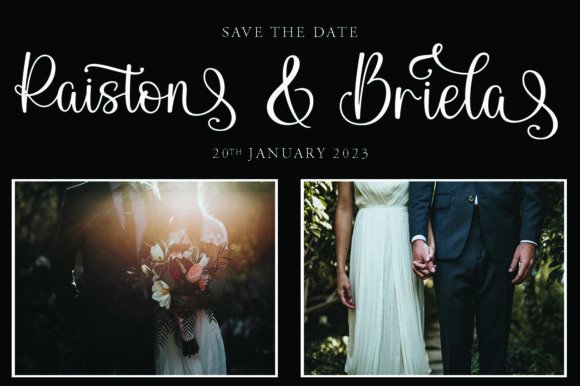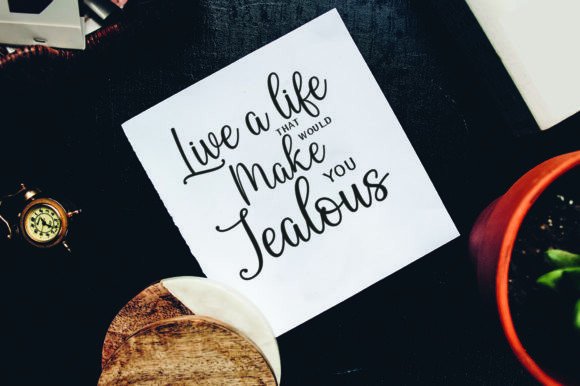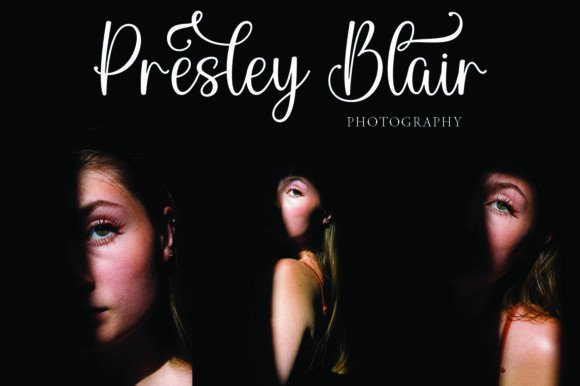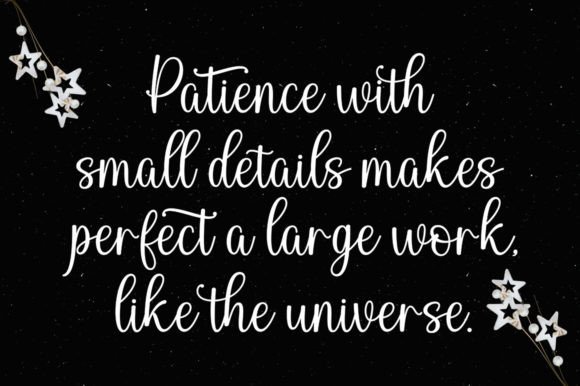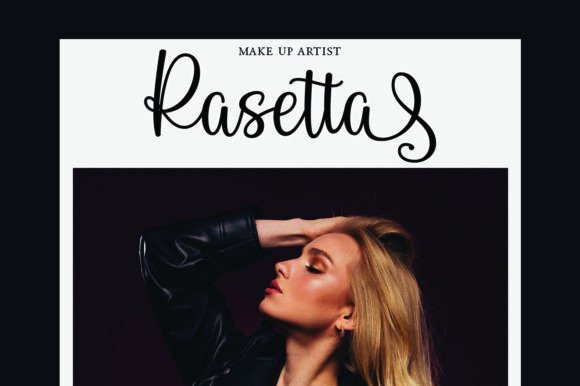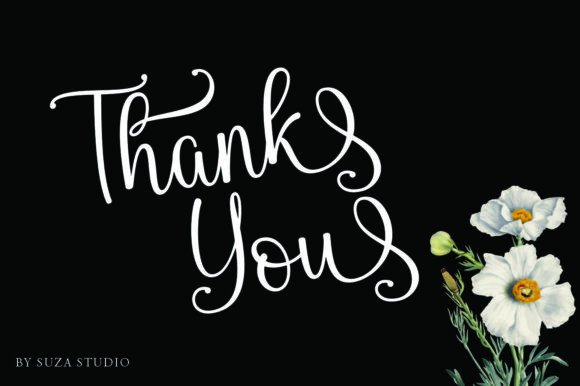
Unleashing Whimsy: The Allure of Agatha Script Font
As a designer, there’s nothing quite like the thrill of crafting a unique visual identity that captures the essence of a brand or a special occasion. It’s the moment when the words flow effortlessly onto the page, and the font becomes an extension of your creative vision. For many of us, this moment is made possible by the enchanting Agatha Script Font.
This beautiful, hand-drawn typeface is a perfect blend of romance and elegance, making it an ideal choice for a wide range of applications – from wedding invitations and logos to signage and letterhead. With its PUA-encoded characters, you’ll have access to a treasure trove of glyphs and ligatures, allowing you to add a touch of whimsy to your designs. Whether you’re a seasoned designer or just starting out, the Agatha Script Font is sure to become a trusted companion in your creative journey.
- Unique Characteristics: The font features elegant, cursive script letters with a touch of vintage flair, making it ideal for creating sophisticated and elegant designs.
Designer Review: Agatha Script Font
Overall, I’m quite impressed with the Agatha Script Font. Here are some things that stand out:
- ✨ Beautiful, elegant script style that adds a touch of sophistication to any design. The curves are smooth and the letterforms are well-connected.
- ✨ Great for use in invitations, greeting cards, and other celebratory materials where a touch of whimsy is needed.
- ✨ Excellent legibility, even at smaller font sizes, making it a great choice for body text or captions.
- ✨ Supports a wide range of languages, making it a great choice for multilingual designs.
- ⚠️ Limited font weights and styles, which may limit its versatility in certain design contexts.
- ⚠️ May not be the best choice for digital displays or small text sizes due to its delicate nature.
- ⚠️ Can be a bit too ornate for some designs, so use with caution.
Overall, I’d give the Agatha Script Font 4 out of 5 stars. It’s a beautiful, elegant font that’s perfect for certain design contexts, but may not be the best choice for every project. With a bit of restraint and creative planning, it can add a touch of sophistication and whimsy to your designs.
For a more elegant look, use the Agatha Script font in conjunction with a clean sans-serif font for body text.
Use the Agatha Script font to create elegant titles or headings in your design.
Use the Agatha Script font to create beautiful headings or titles in your presentation or document.
For a more dramatic effect, use the Agatha Script font in all caps.
Combine the Agatha Script font with a subtle texture or background to add depth to your design.
The Agatha Script font is ideal for:
Food and beverage branding
High-end fashion and beauty branding
Wedding and event planning